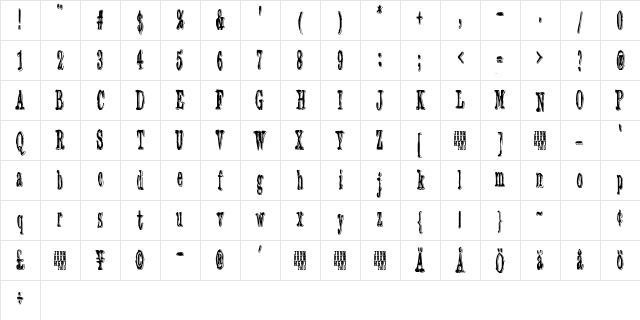
3 Times Recycled Old Newspaper Regular Free Font
3 Times Recycled Old Newspaper Regular
Designer: junkohanhero
Design Context for 3 Times Recycled Old Newspaper
3 Times Recycled Old Newspaper is a composed and adaptable typeface that performs quietly and consistently across a wide range of design contexts.